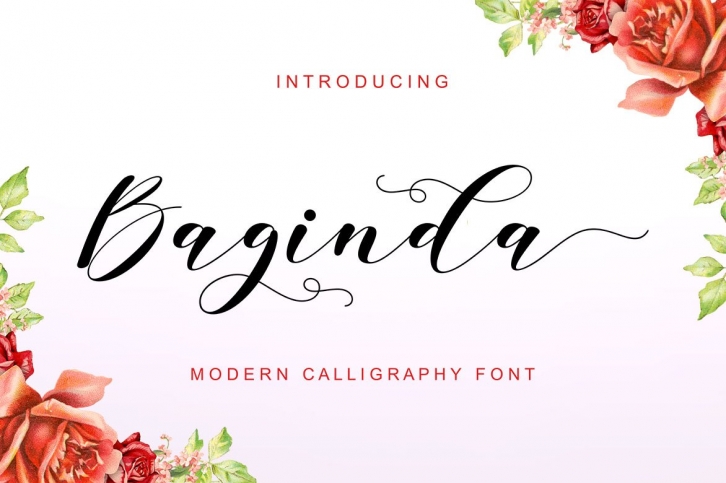
Baginda is a gorgeous font that was realeased on April 14, 2021. The font can be used in many style contexts and design environments. Perfect for invitations, magazines, websites, logos, and more! It was designed by Gatype and the file size is 15.99 MB. Thanks for checking out this font!